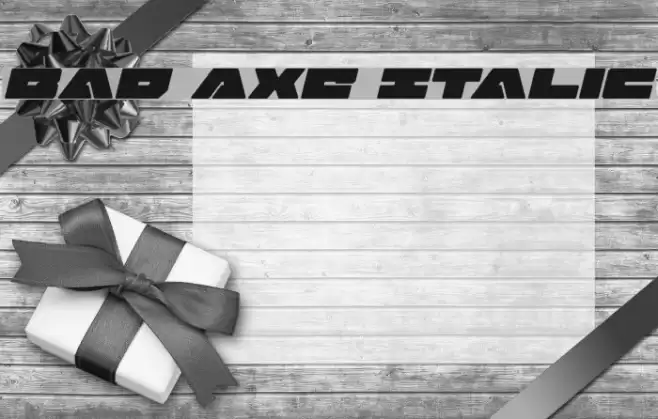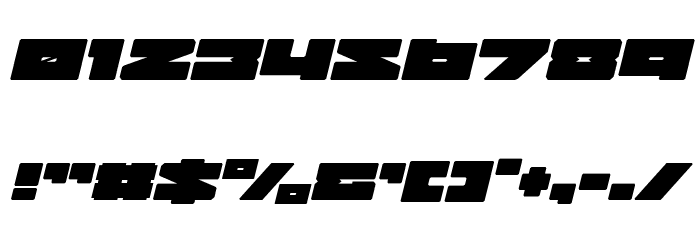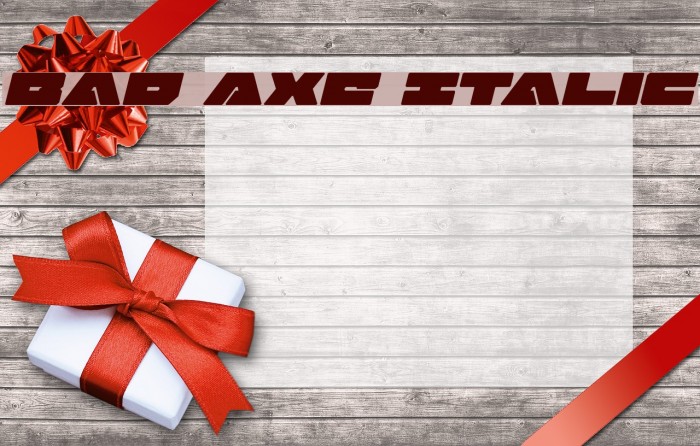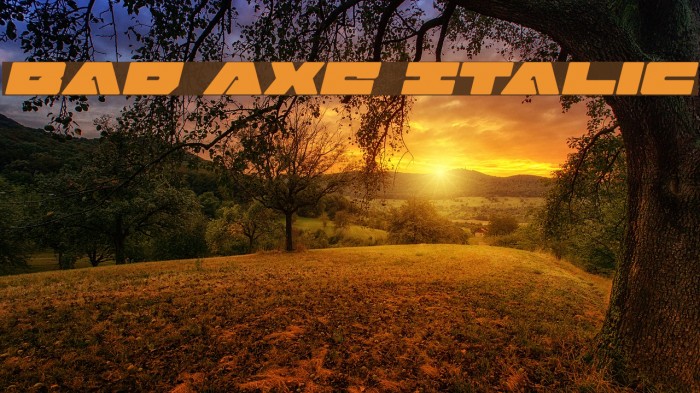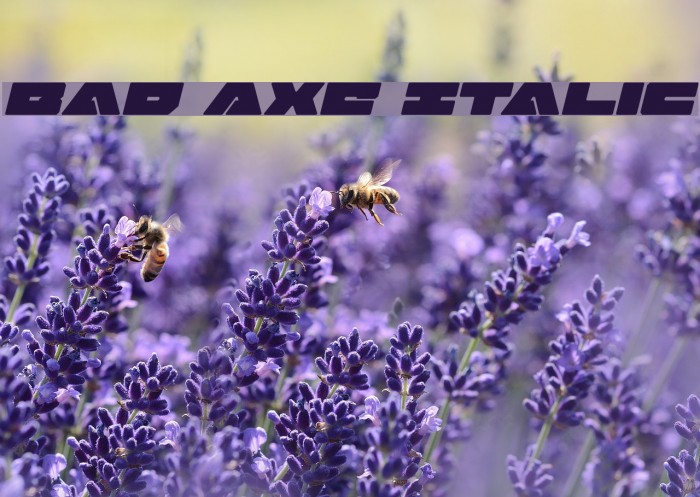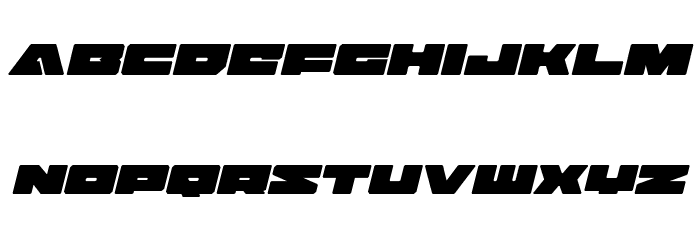
Bad Axe Italic Font
Bad Axe Italic Description
This font features a bold and dynamic design with a strong, angular appearance. The characters are heavily stylized, with sharp edges and a forward-leaning italic slant, giving it a sense of motion and energy. The uppercase and lowercase letters maintain a consistent style, with a blocky, geometric structure that is both modern and aggressive. The numbers and special characters follow the same design principles, ensuring uniformity across all glyphs. This font's unique style makes it stand out, perfect for projects that require a bold statement.
A bold, angular, and italicized font with a modern, dynamic style from Sci-fi fonts.
- Proposed Projects: Ideal for sports branding, video game titles, posters, and any project needing a strong, impactful typeface.